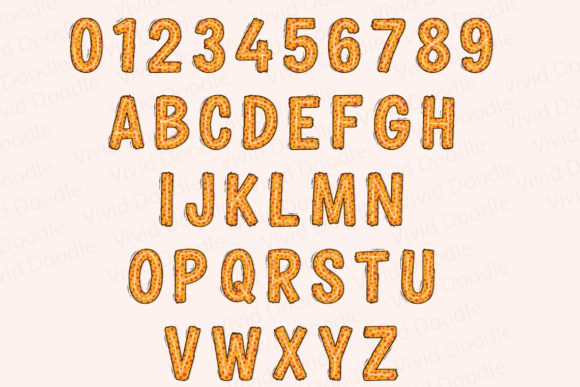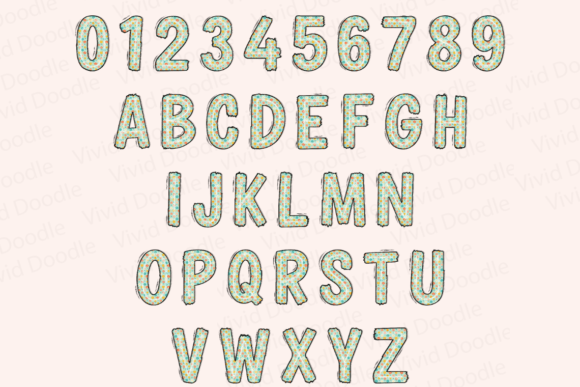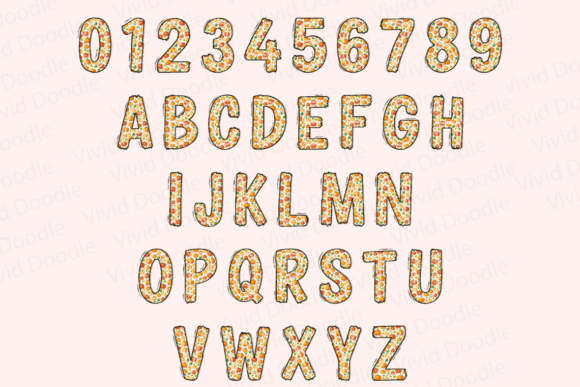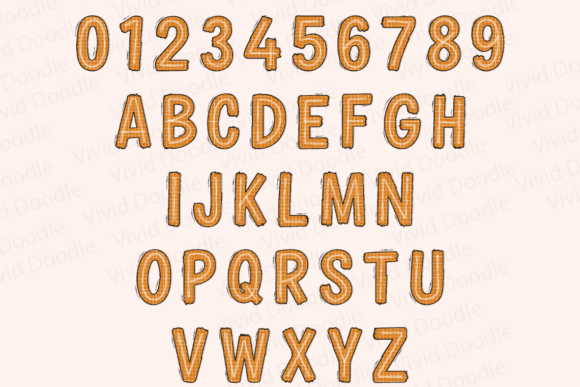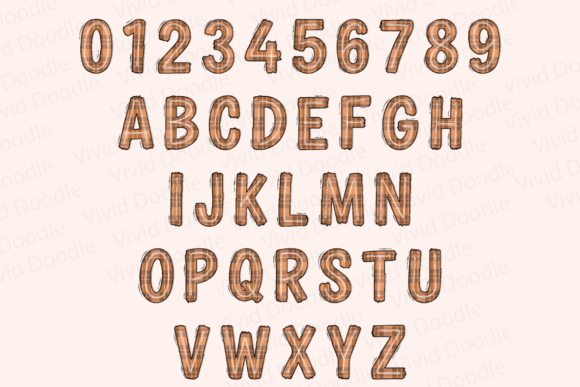
Introducing the Boho Fall Font: Add a Touch of Autumn Charm to Your Designs
As the autumn season approaches, designers and crafters are on the lookout for creative ways to infuse their projects with a cozy, seasonal vibe. Look no further than the “Boho Fall Autumn” font, a delightful typeface that combines playful doodles with a bohemian touch. This charming font is perfect for adding a warm and inviting feel to your designs, whether you’re crafting holiday decorations, working on school projects, or creating artistic masterpieces.
The Beauty of Boho Fall Font
The Boho Fall font is a unique and eye-catching typeface that embodies the spirit of the autumn season. Its playful doodles and bohemian flair make it an ideal choice for designers and crafters who want to add a personal touch to their work. With its intricate details and seasonal charm, this font is sure to captivate your audience and leave a lasting impression.
What Makes Boho Fall Font Special?
- Playful Doodles: The Boho Fall font features playful doodles that add a whimsical touch to your designs. From leaves and flowers to acorns and pumpkins, each character is carefully crafted to evoke the feeling of autumn.
- Bohemian Touch: The font’s bohemian flair gives it a unique and eclectic feel that’s perfect for designers and crafters who want to add a personal touch to their work.
How to Use the Boho Fall Font
The Boho Fall font is easy to use and can be incorporated into a variety of design projects. Here are a few ideas to get you started:
- Holiday Decorations: Use the Boho Fall font to create festive holiday decorations, such as garlands, banners, and signs.
- School Projects: Add a touch of autumn charm to your school projects, such as presentations, posters, and reports.
- Creative Art: Use the Boho Fall font to create unique and eye-catching artwork, such as illustrations, paintings, and collages.
The Boho Fall font is a unique and charming typeface that’s perfect for designers and crafters who want to add a touch of autumn charm to their projects. With its playful doodles and bohemian flair, this font is sure to captivate your audience and leave a lasting impression. So why wait? Download the Boho Fall font today and start creating beautiful, seasonal designs that will warm the hearts of everyone who sees them.